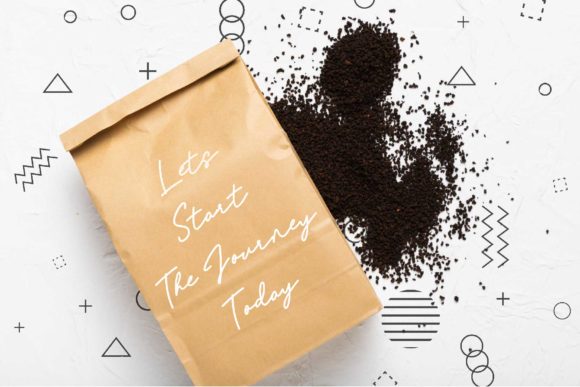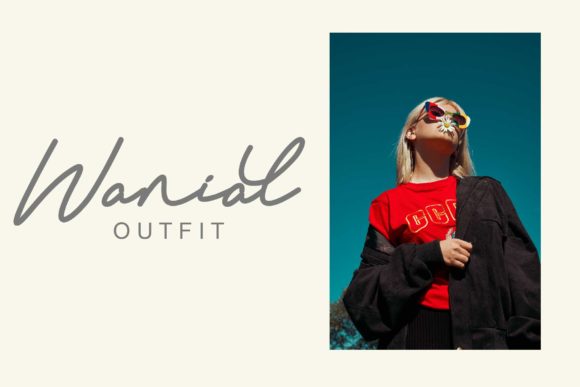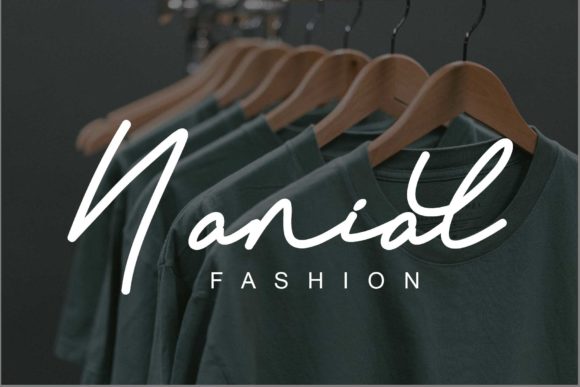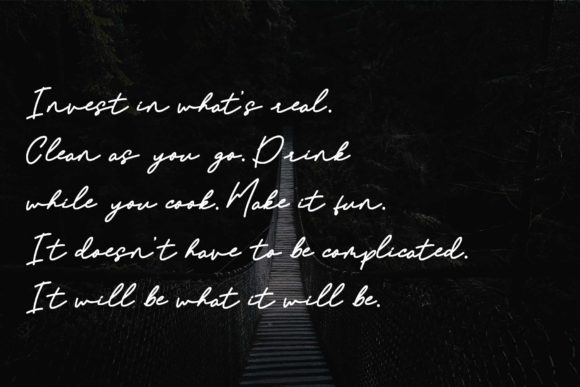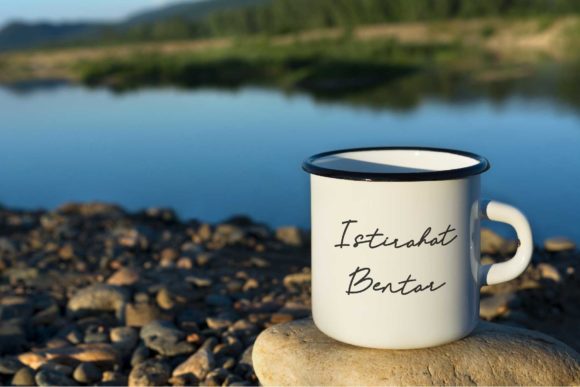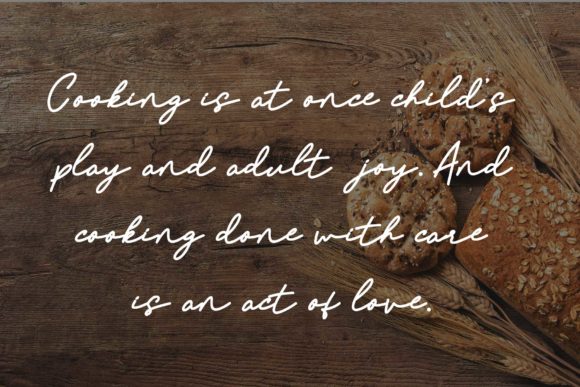
Discover the Elegance of the Anatalya Font
As you sit at your desk, surrounded by papers, pencils, and the hum of your computer, the creative spark strikes. You envision a beautiful logo, a stunning title, or a captivating quote that will elevate your project to new heights. This is the moment when the right font can make all the difference. And, for many designers, that font is the Anatalya Font – an exquisite handwritten font that effortlessly combines classic calligraphic influences with a modern, fresh twist.
Whether you’re a seasoned designer or just starting out, the Anatalya Font is a valuable addition to your toolkit. Its versatility and sophistication make it perfect for a wide range of projects, from elegant wedding invitations to modern business cards. With the Anatalya Font, you can bring a touch of sophistication and elegance to your designs, setting them apart from the rest.
Anatalya Font Key Features
- Font Family: Anatalya Font offers a range of styles, including Regular, Italic, Bold, and Bold Italic.
- Language Support: Anatalya Font supports a wide range of languages, including Latin, Cyrillic, Greek, and many others, making it a versatile choice for multilingual projects.
- Unique Characteristics: The font features a unique blend of modern and classic elements, with a focus on legibility and readability, making it ideal for use in body text, headings, and titles.
Designer Review: Anatalya Font
Overall, I found the Anatalya Font to be a solid choice for various design projects. Here are some things that work well: ✨
- Unique and elegant design: Anatalya Font has a distinct, sophisticated look that sets it apart from more common fonts.
- High-quality rendering: The font is well-optimized for digital use, making it perfect for web and mobile applications.
- Wide character set: Anatalya Font supports a wide range of languages, making it suitable for international projects.
However, there are some limitations to consider: ⚠️
- Limited font weights: Anatalya Font is primarily designed with a single font weight, which may limit its versatility in certain design contexts.
- No extensive language support: While the font supports multiple languages, it may not be suitable for projects that require support for extremely rare or specialized languages.
Overall, I would give Anatalya Font 4 out of 5 stars. It’s a beautiful, high-quality font that’s well-suited for many design projects. However, its limitations may make it less suitable for more complex or specialized projects.
For a more polished look, use Anatalya font for headings and body text. Experiment with different font sizes and colors to create visual hierarchy.
For advanced users, use Anatalya font in conjunction with layer styles and effects to create intricate designs.
For presentations, use Anatalya font for headings and body text to create a professional look.
Use Anatalya font in combination with other fonts to create a visually appealing design.
Experiment with different font sizes and colors to create visual hierarchy.
Use Anatalya font for headings and body text to create a professional look.
Anatalya font is suitable for:
Corporate branding
Business presentations
Marketing materials
Editorial design